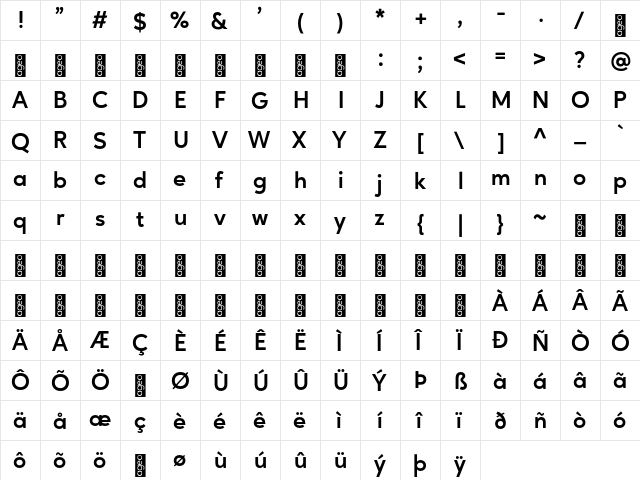
Ageo Personal Use Bold
Design Context for Ageo Personal Use Typeface
Ageo Personal Use is a composed and adaptable typeface that performs quietly and consistently across a wide range of design contexts. The heavy weight commands attention and anchors typographic hierarchies.